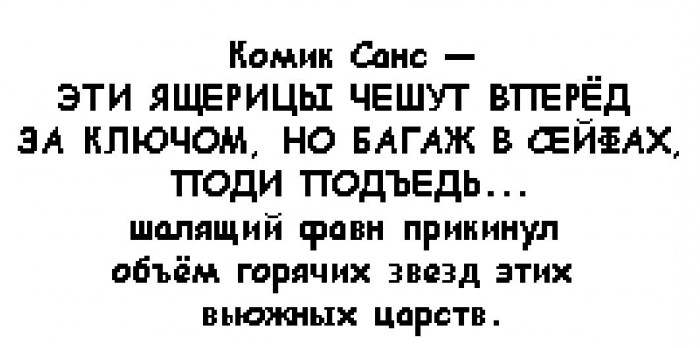
хех, лучше бы не тратила время на дерьмовейший из созданных(если бы не мемы) шрифт, особенно в кириллице. тут замешан Underеtale, я так понимаю.
У латиницы стандартный хинтинг Comic Sans Bold от microsoft, и кириллицу он отрисовывает так:
Salutations people, i completely forgot about this website! To be honest, this was my first experience in fonts, i've created cyrillic for this font when i was only 14 y. o. — at that time i used to be a huge fan of undertale. After completing this game, i have looked for all the pixel cyrillic fonts from the game. Unfortunately, i found only 8-bit operator and papyrus, so i decided to create it myself!
Btw, i am going to update this font to the my own version, which is based mostly on the original cyrillic font with a few modifications for readability